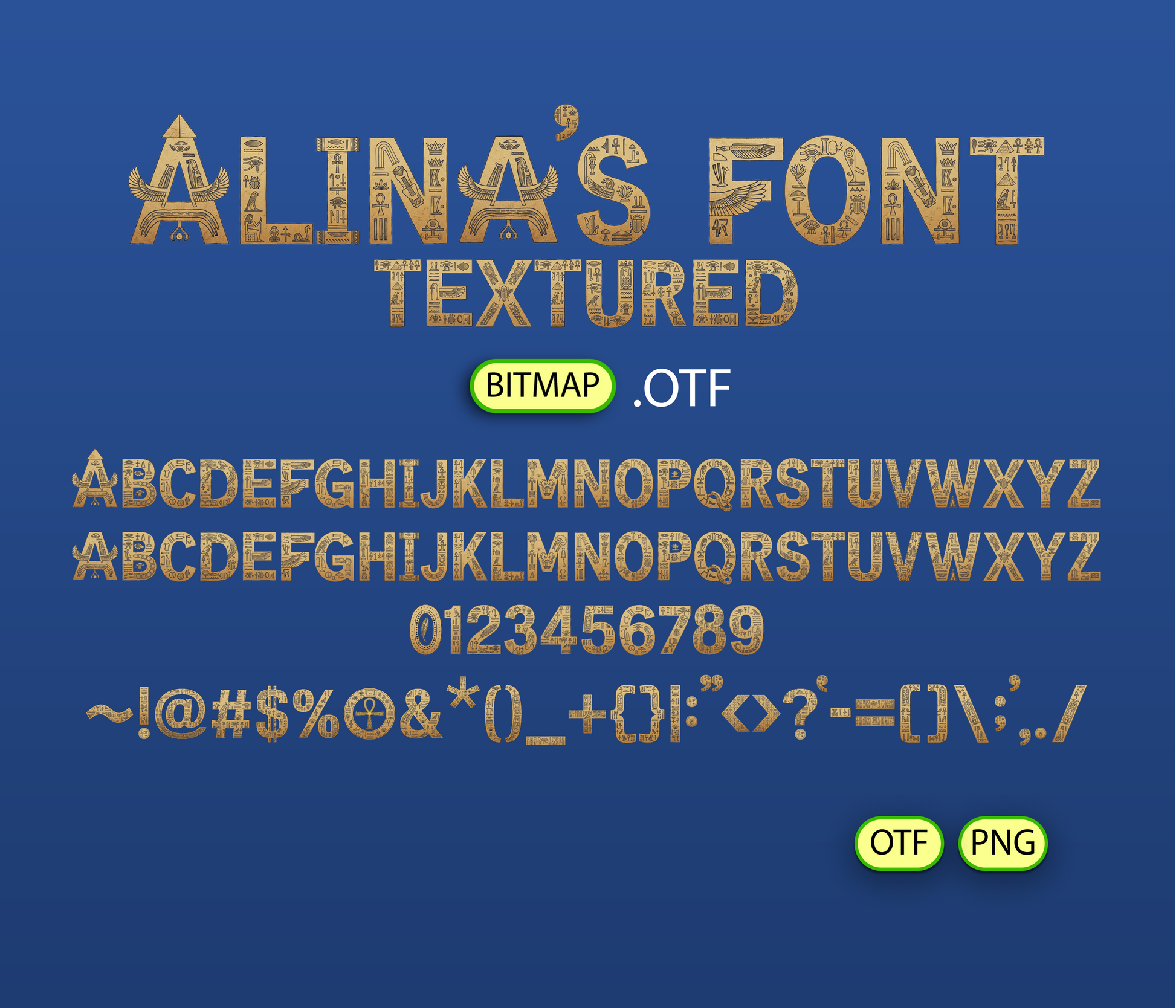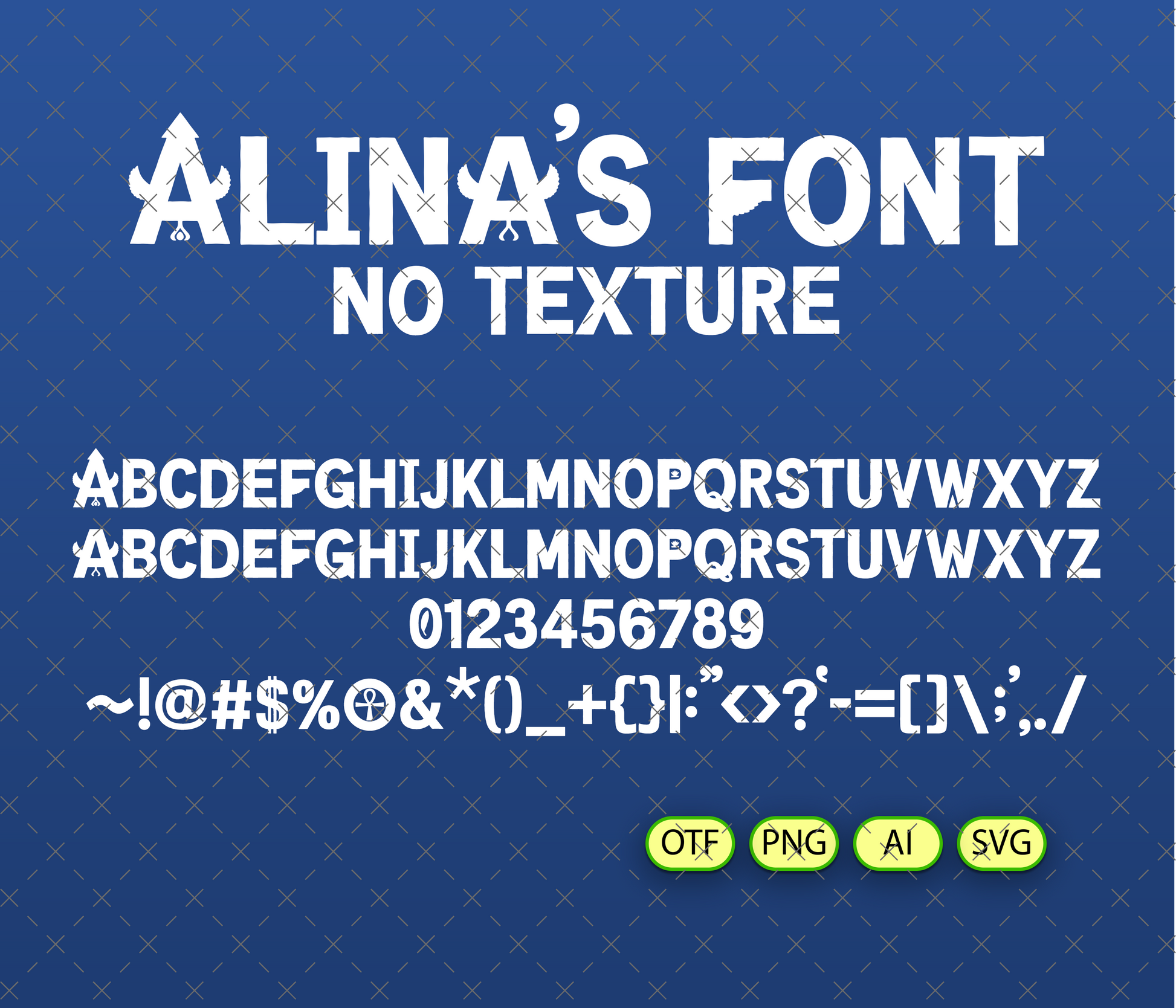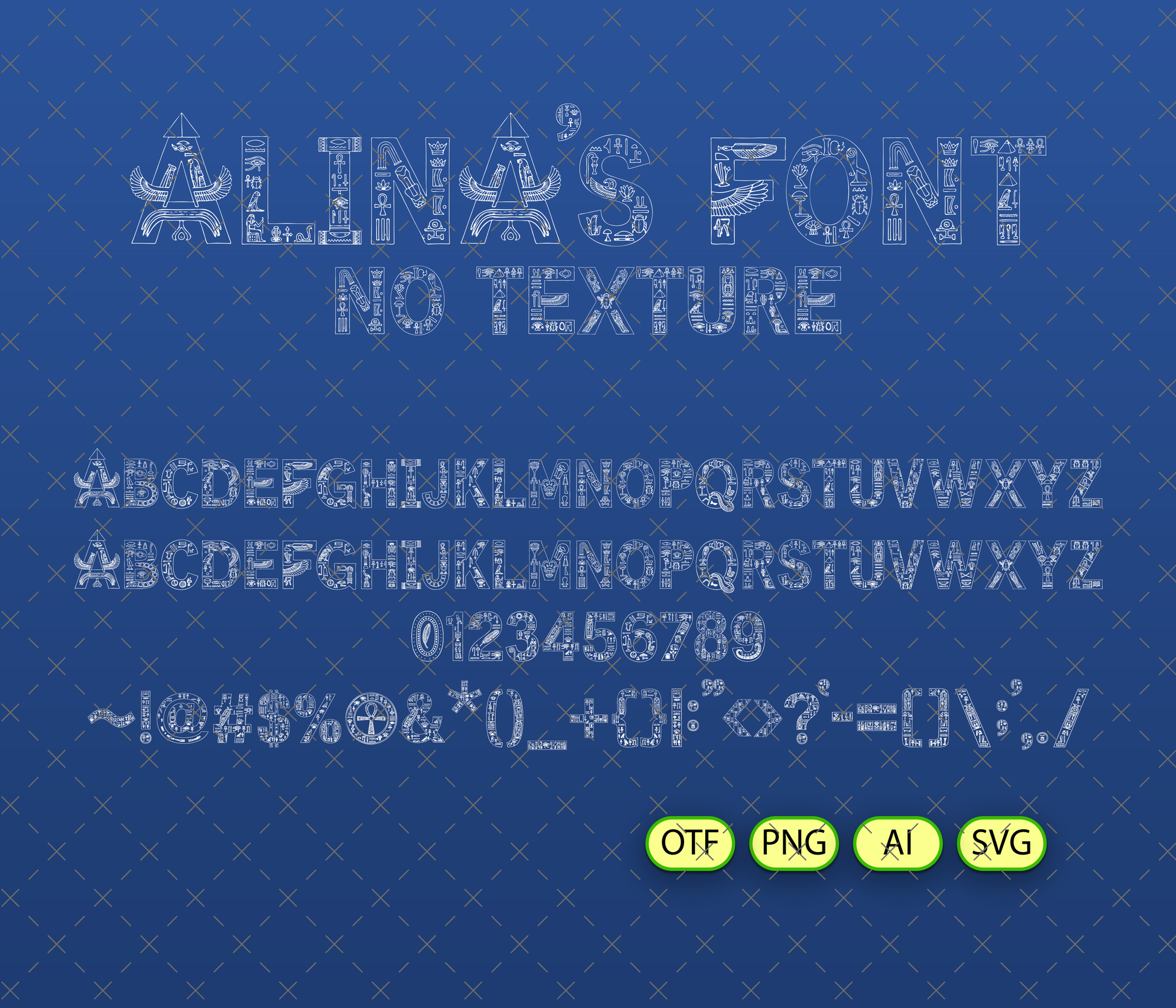
Ancient Pharaoh Font Textured
Step into the majestic world of Nile civilization with our Ancient Pharaoh Font Textured, capturing the essence of hieroglyphic grandeur and pyramid-era mystique. Perfect for history enthusiasts, themed event planners, content creators, and creative professionals, this font brings the bold, timeless spirit of ancient Egyptian stories to your projects. Create eye-catching invitations, merchandise, or digital content with the dramatic energy of archaeological discovery narratives.
Bold Typography for Historical Design & Cultural Projects
Our Ancient Pharaoh Font Textured features dramatic, stylized letterforms with weathered stone textures reflecting the world of royal dynasties and temple monument settings.
Our font pays tribute to the world of ancient civilization stories and archaeological discovery, empowering your projects with its bold and timeless spirit. Whether crafting educational materials, designing themed products, or adding a historical touch to personal projects, this font communicates the vibrant essence of pharaonic entertainment. Ready to inject ancient mystique into your creations? This font is your key to eye-catching, impactful design.